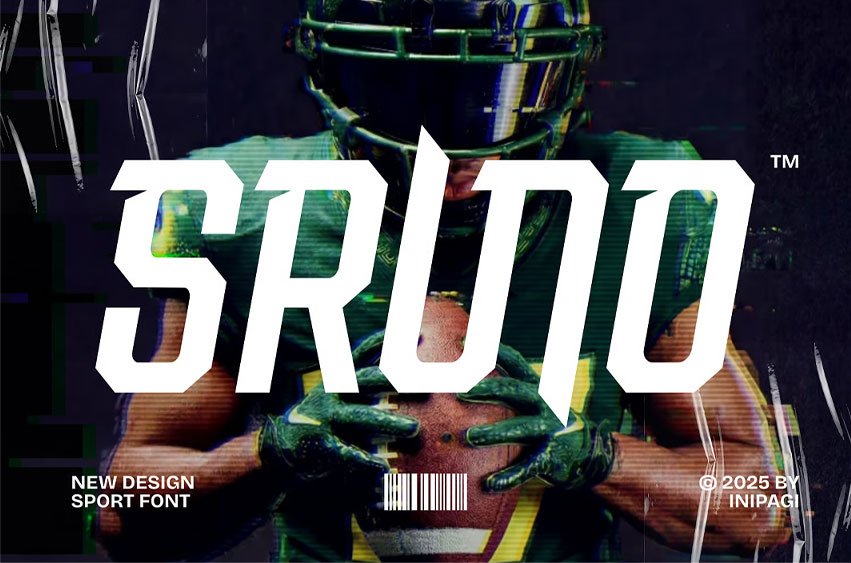
Sruno Font Modern Sport Font, a dynamic typeface that communicates movement, power, and competitive energy. Its bold geometry and strong visual presence make it suitable for sports branding, team identities, scoreboards, event titles, and other high-impact visual environments. The design language also fits gaming interfaces, dynamic posters, and promotional visuals that require a fast and energetic look.
Sruno Modern Sport Font is inspired by competition, motion, and the atmosphere of stadiums. It reflects acceleration, agility, and determination. The letterforms feature sharp angles and confident proportions, giving the typography a voice that feels fast, focused, and performance-driven.
Key Features of Sruno
- Strong Sport Personality: Delivers an athletic and competitive mood.
- Modern Structure: Geometric construction with sharp edges and solid weight.
- High Visual Impact: Dominant presence in headlines, titles, and large displays.
- Excellent Legibility: Works well for logos, banners, event branding, and social media visuals.
- Sports Teams and Clubs: Build assertive and memorable visual identities.
- Performance-Focused Brands: Ideal for gym concepts, training environments, and active lifestyle visuals.
- Gaming and Esports: Suitable for titles, overlays, tournament branding, and streams.
- Event and Competition Visuals: Great for race titles, match announcements, and dynamic posters.
With Sruno Modern Sport Font, visual communication gains speed, strength, and modern athletic character. It is designed for creators who want typography that feels energetic, confident, and built for performance-driven contexts.